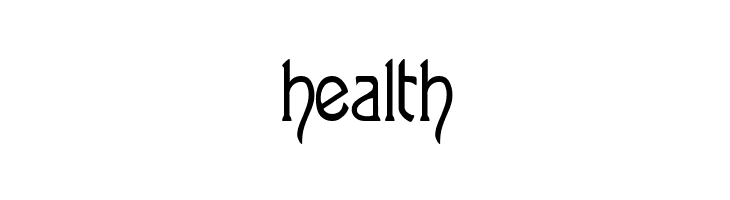
A whimsical font with letters inside coffee cup illustrations, featuring heart and steam motifs.
A playful font with letters inside hand trucks, suggesting movement.
A decorative font with bold, uppercase letters inside candle shapes.
A playful font with bold letters encased in circles, accompanied by bunny illustrations.
A playful, football-themed font with bold characters enclosed in football shapes, ideal for sports projects.
A playful, decorative font with letters inside cartoon potato characters.
A decorative font with letters inside camera icons, perfect for photography themes.
A decorative font with letters inside butterfly shapes.
A bold, decorative font with cloud and snowflake motifs for a wintry feel.
A decorative font with bold letters inside blackbird silhouettes.
A decorative font with hand-drawn weather-themed symbols.
A whimsical font with letters inside heart shapes with wings, perfect for romantic themes.
A decorative font with uppercase letters framed in intricate tree designs.
A decorative font showcasing zodiac symbols in a modern, illustrative style.
A bold, decorative font styled like vintage wanted posters.
A decorative font with characters encased in ornate spoon designs.
A decorative font with bold letters and intricate bird illustrations.
A playful font with letters on cartoon leprechaun hats.
A decorative script font with wedding ring and flower embellishments.
A decorative font with bold uppercase letters framed by intricate floral designs.
A decorative serif font with letters encased in floral-patterned circles.
A bold decorative font with uppercase letters in circles and feminine symbols.
A decorative font with seahorse motifs integrated into each character.
( Alan Carr )
A bold, geometric font with strong, modern letterforms.
( Alan Carr )
A versatile collection of bold, geometric symbols with high contrast.
( Alan Carr )
A classic, italic serif font with medium contrast and a vintage feel.
( Alan Carr )
A geometric sans-serif font with bold, clean lines and a modern look.
( Alan Carr )
A sleek, modern font with clean lines and geometric structure.
( Dingbat Crazy - dingbatcrazy.fateback.com/ )
A diverse collection of uniquely styled arrows for versatile design use.
( Dingbat Crazy - dingbatcrazy.fateback.com/ )
A diverse set of decorative and plain frame glyphs.
( Kat's Fun Fonts - www.katsfunfonts.com/ )
A playful font with characters inside bubbling cauldrons, perfect for magical themes.
( Kat's Fun Fonts - www.katsfunfonts.com/ )
A playful, car-themed decorative font with bold, italicized letters.
( Kat's Fun Fonts - www.katsfunfonts.com/ )
A playful, decorative font with puppy illustrations in bold, rounded letters.
( Kat's Fun Fonts - www.katsfunfonts.com/ )
A playful decorative font with characters inside pots of gold.
( Kat's Fun Fonts - www.katsfunfonts.com/ )
A playful, decorative font with characters enclosed in textured squares, ideal for creative projects.